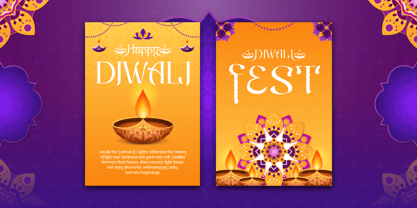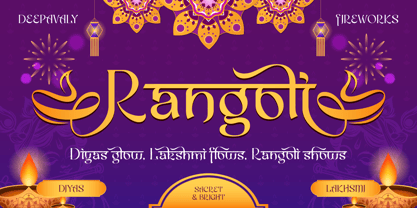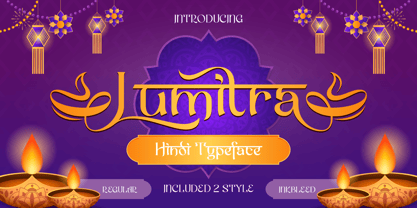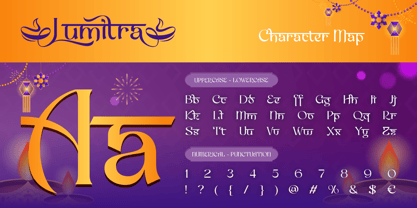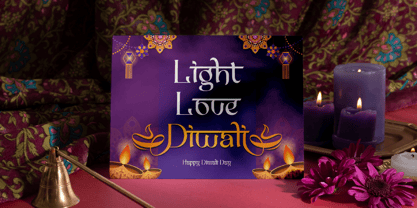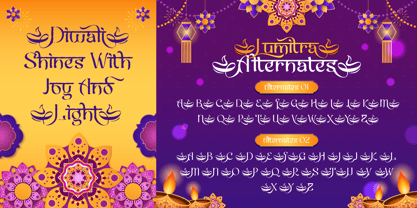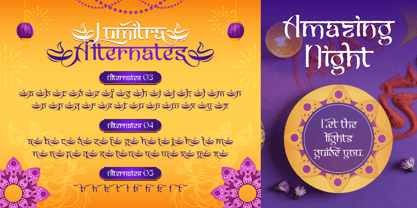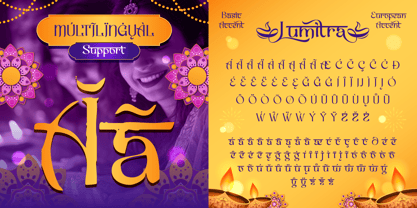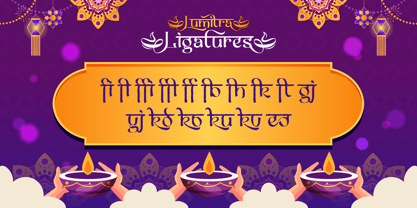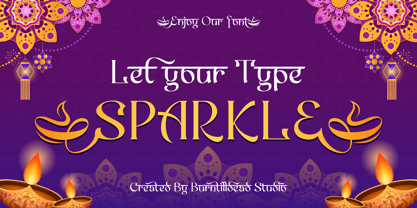
Lumitra
by Burntilldead
The Lumitra Font Family was designed by Eric Kurniawan and published by Burntilldead. Lumitra contains 2 styles and family package options. More about this family
Say hi to Lumitra, a Hindi-inspired typeface that’s basically the Diwali of fonts: bright, elegant, and full of celebration vibes. Think glowing diyas, colorful rangoli, and that warm, festive feeling you can almost hear in the background.
Packed with 2 styles: Regular for a clean and classy look, and Inkbleed for that rustic, hand-painted charm (perfect for posters, invitations, or any project that needs a little extra soul).
If you’re designing for festivals, weddings, menus, or just wanna add a dash of Bollywood drama to your work — Lumitra brings the sparkle.
Designers: Eric Kurniawan
Foundry: Burntilldead